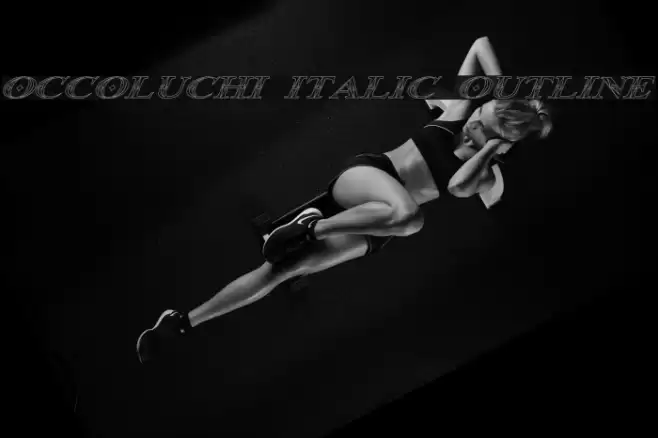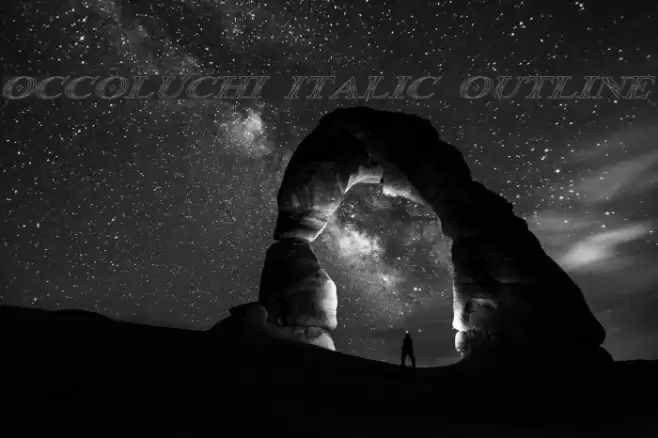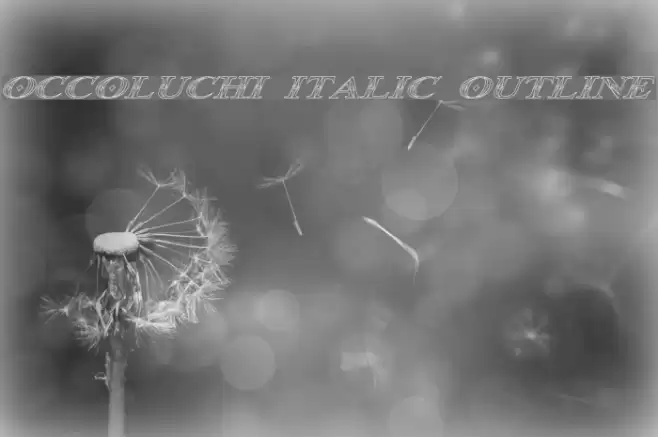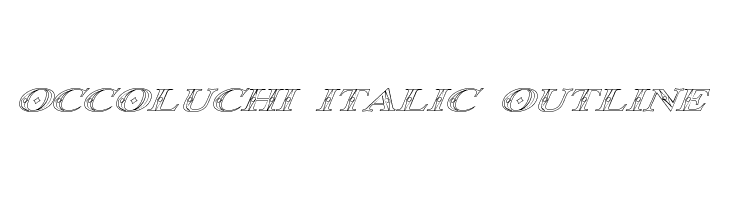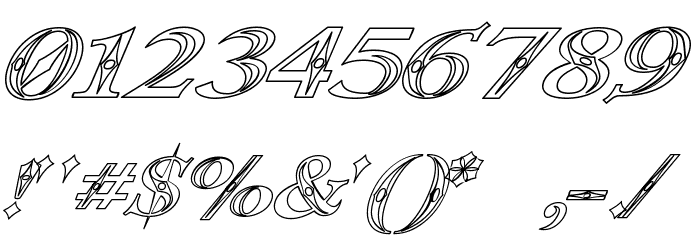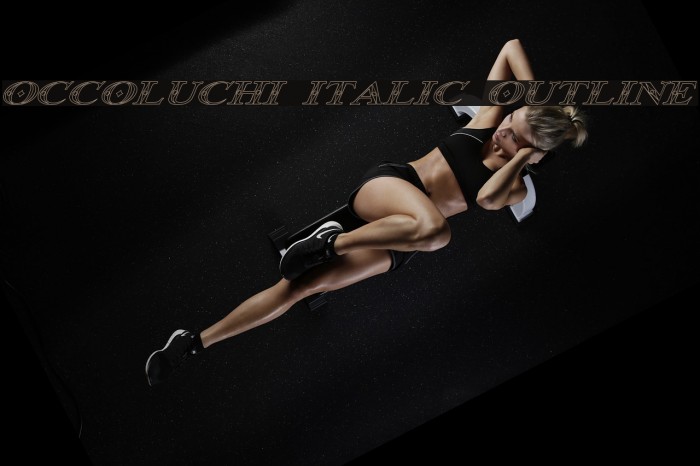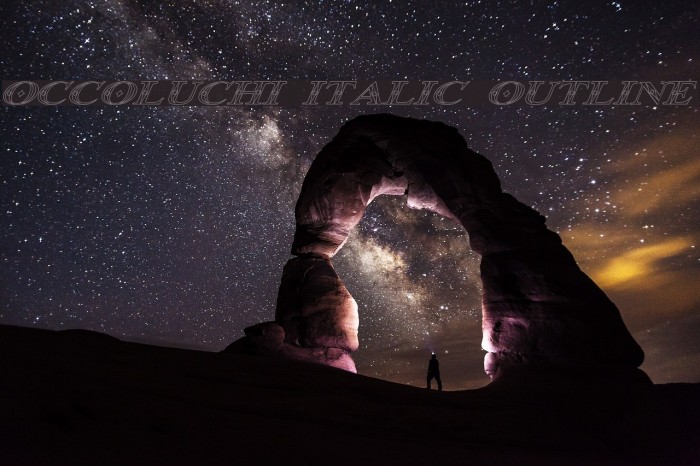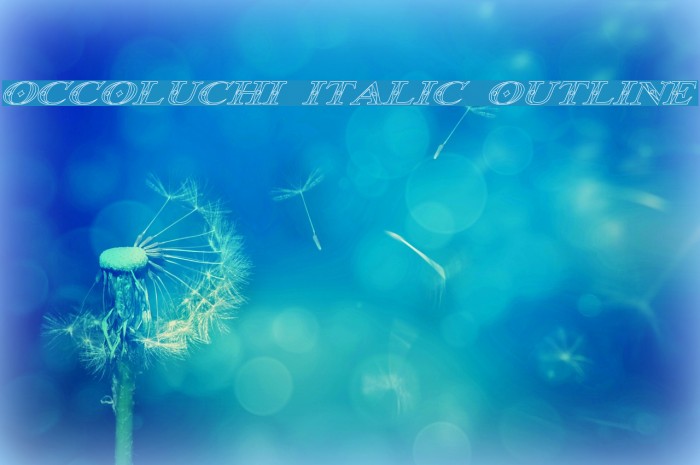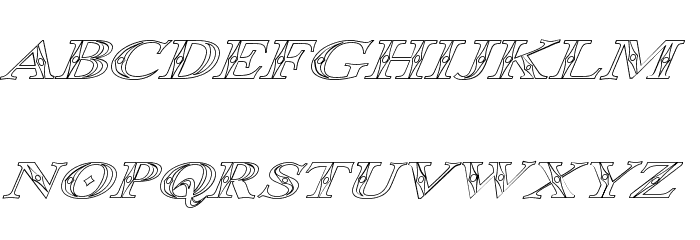
Occoluchi Italic Outline Font
Occoluchi Italic Outline Description
This font features an elegant italic style with an outline effect, giving it a sophisticated and artistic appearance. The characters are designed with a slanted orientation, enhancing the dynamic and fluid nature of the typeface. The outline adds a layer of complexity and depth, making each letter stand out with a distinct presence. The font maintains a consistent stroke width throughout, ensuring readability while retaining its decorative flair. The numerals and special characters are crafted with the same attention to detail, providing a cohesive look across all glyphs. This typeface is ideal for projects that require a touch of elegance and creativity.
An elegant italic outline font with a sophisticated and artistic style from Decorative fonts.
- Proposed Projects: Ideal for branding, invitations, posters, and artistic projects that require a touch of elegance.
- Use Case: Logos, Headlines, Artistic projects